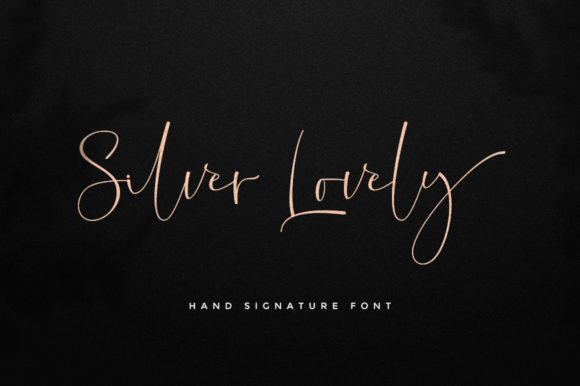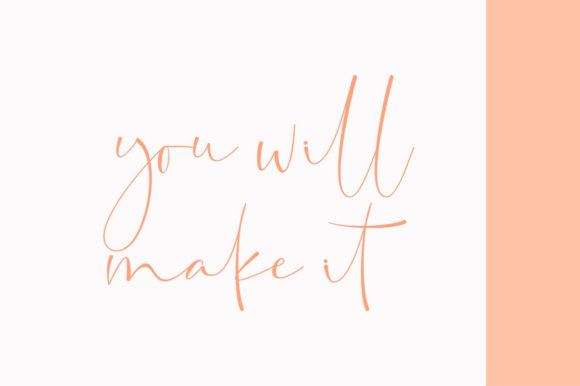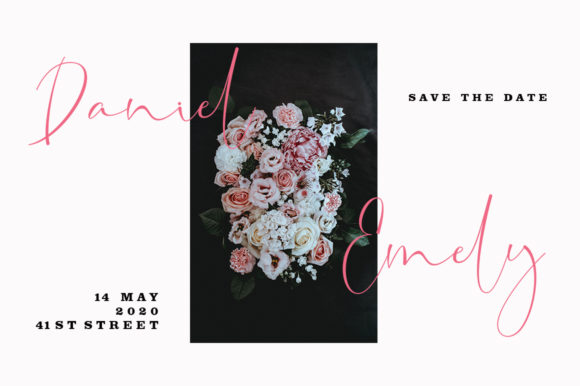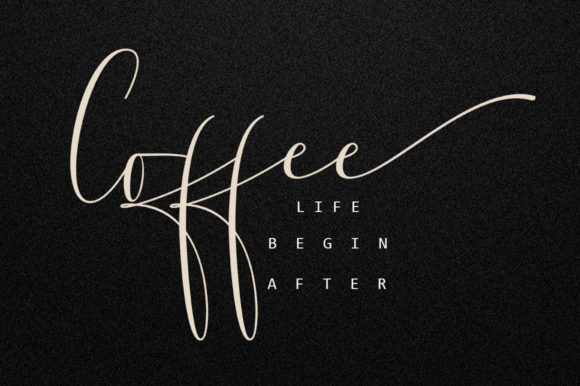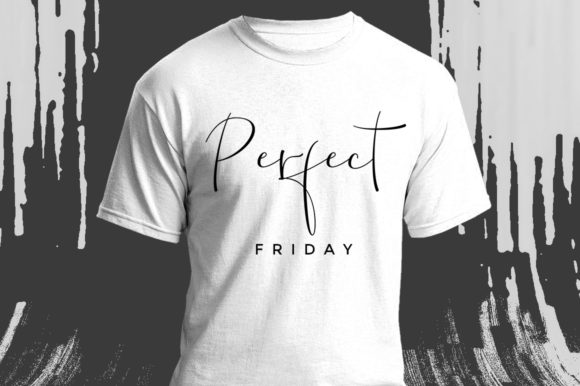
HomeScript FontsSilver Lovely Font Script Fonts Silver Lovely Font FacebookXPinterestWhatsApp Silver Lovely Font Poster 2 Silver Lovely Font Poster 3 Silver Lovely Font Poster 4 Silver Lovely Font Poster 5 About Silver Lovely Font Silver Lovely is a bold and charming script font that will turn any design idea into a true standout! DOWNLOAD ON CREATIVE FABRICAThis font is sold and delivered by Creative Fabrica. Font Canyon may earn a commission if you buy through this link. People also explored Magazine Mockup Letters Painted Font Cinema Show Font Chapline Font Ahtohalland Font Black Coffee Font Scarlet Sword Font Augdia Font Houstone Font 401 0 TagsSilver Lovely Font Previous articleRockhead FontNext articleDelicia Fairly Font LEAVE A REPLY Cancel reply Comment: Please enter your comment! Name:* Please enter your name here Email:* You have entered an incorrect email address! Please enter your email address here Website: Save my name, email, and website in this browser for the next time I comment. Personal Use Free Crack Man Personal Use Free Read more about this font Histeria Bites Personal Use Free Read more about this font Snaily Personal Use Free Read more about this font BD Medled Personal Use Free Read more about this font BLOG 5 Fonts That Will Dominate Design Trends in 2026 5 Fonts for 2026 That Will Dominate Design Trends Typography plays a critical role in visual communication, and as we look ahead to 2026, it’s... Where to Buy American Fonts Online in 2024 Elegant Wedding Invitation Fonts – Handwritten & Script Fonts Best Fonts for T-Shirt Design – Top 2025 Picks